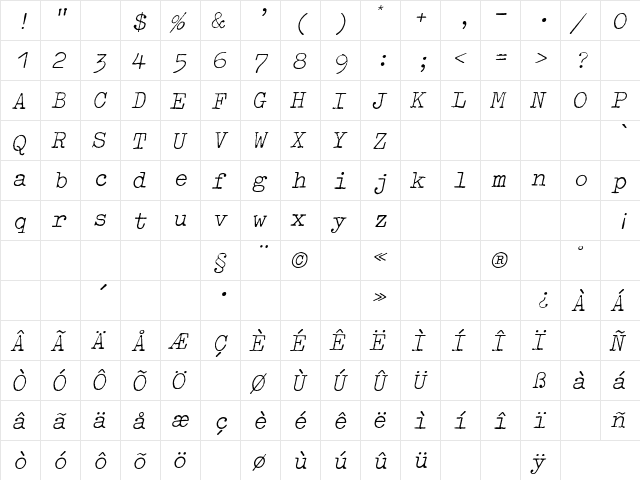
OldTypewriterLigObl Regular
Design Context for OldTypewriterLigObl Typeface
OldTypewriterLigObl brings the precise, column-aligned rhythm of monospaced typography to designs that value technical clarity and systematic order.
A natural fit for code editors, technical documentation, developer-focused branding, and terminal-inspired UI.
Pro Tip: Pair OldTypewriterLigObl with a proportional sans for UI contexts where code-style labels and regular body copy need to coexist.